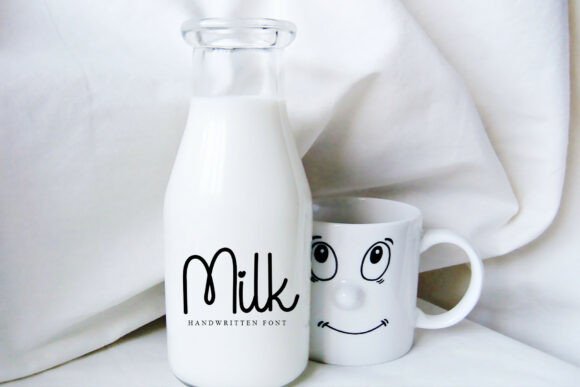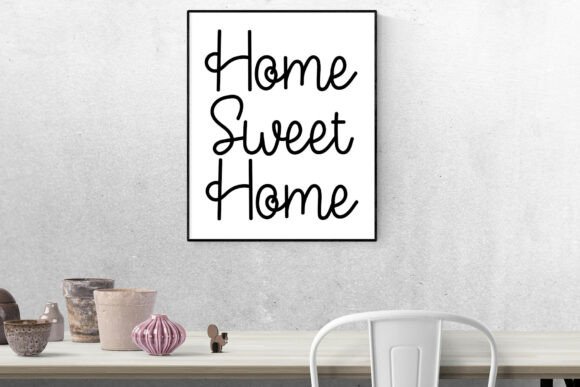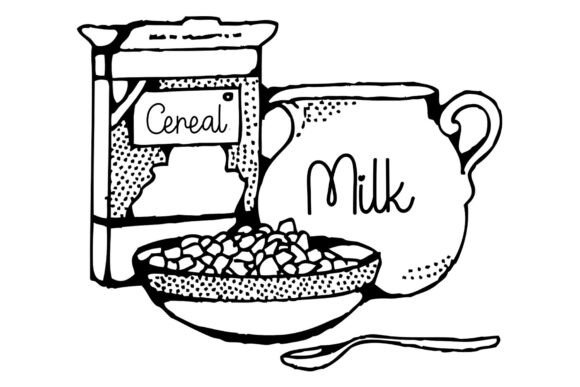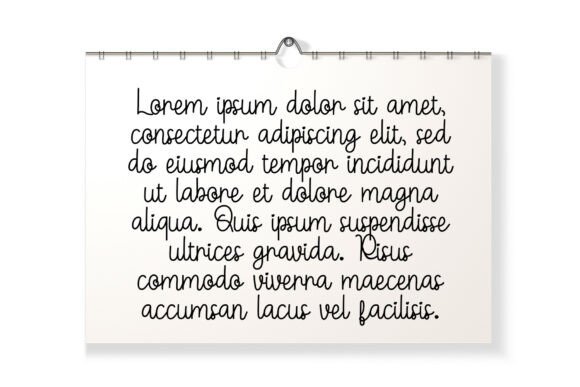
Introduction to Maxilla Font
Have you ever stared at a blank canvas, searching for the perfect design element to bring your creative project to life? That’s exactly where the Maxilla Font comes in – a game-changing design resource that adds a touch of elegance and sophistication to any visual creation. Whether you’re crafting a wedding invitation, a billboard, or a logo, this beautiful font is sure to captivate your audience.
What sets the Maxilla Font apart is its unique, hand-made quality. With a varied baseline and a range of creative possibilities, this font is a must-have for designers looking to elevate their work. Plus, its PUA encoding means you can access all the glyphs and swashes you need with ease, making it a valuable asset for any design project.
Key Features of Maxilla Font
- High-quality font with a unique, modern design suitable for creative projects.
- Designed with a high resolution (up to 1024 x 1024 pixels) for crisp and clear display.
- Unique characteristics include bold, italic, and regular styles, offering flexibility for various design applications.
Honest Review: Maxilla Font
I recently came across the Maxilla Font, a creative project designed to provide a unique typography experience. The first thing that caught my attention was its high quality design, making it a valuable design resource for any project.
What works well: ✨ The font’s clean and modern design makes it perfect for digital projects, such as web design and mobile apps. The high level of detail in the font’s design also makes it suitable for print projects.
What doesn’t work well: ⚠️ One limitation of the Maxilla Font is its limited character set. It would be great to see an expanded character set in future updates.
Overall, I’m impressed with the Maxilla Font. Its unique design and high quality make it a valuable addition to any design library. While it may have some limitations, I believe it’s a great resource for designers looking to add some creativity to their projects.
- Perfect for digital projects
- Unique typography experience
Maxilla Font
Tips for Getting the Most Out of Maxilla Font
Maxilla Font is a high-quality design resource that can add a touch of elegance to your creative project. To get the most out of it, try combining it with other design elements, such as graphics and images, to create a visually appealing design. You can also use it in a variety of contexts, from branding and marketing materials to web design and social media graphics.
Maxilla Font is a versatile design resource that can be used in a variety of situations. Some common use cases include:
- Social media graphics and advertising
- Print materials, such as business cards and brochures
By incorporating Maxilla Font into your next project, you’ll experience the benefits of a high-quality, free download that’s sure to elevate your design to the next level. Its versatility and timeless design make it a must-have for any designer’s toolkit. So why wait? Download Maxilla Font today and discover the endless possibilities it has to offer. With its sleek and modern design, it’s the perfect addition to any creative project.